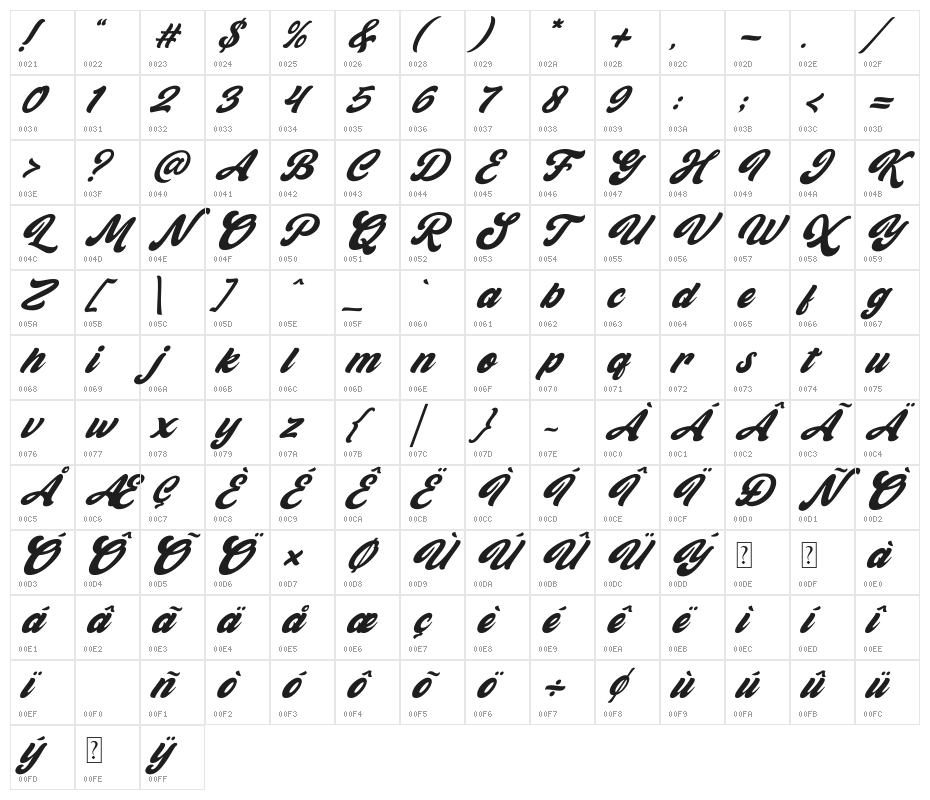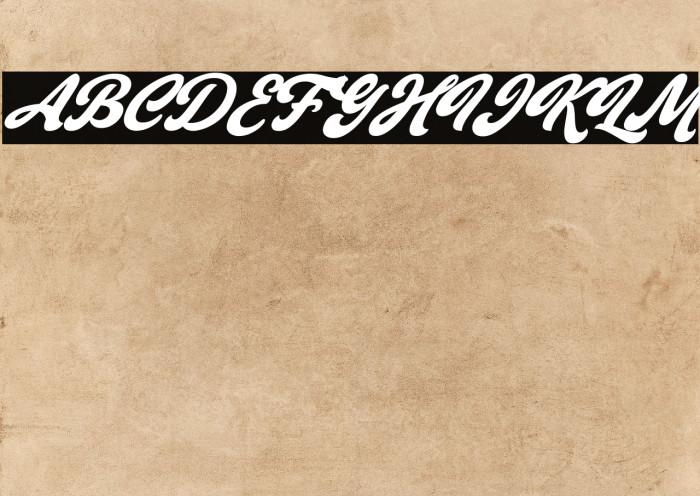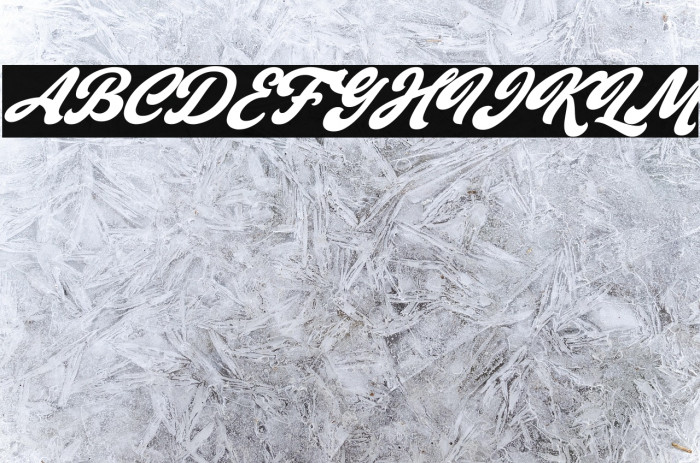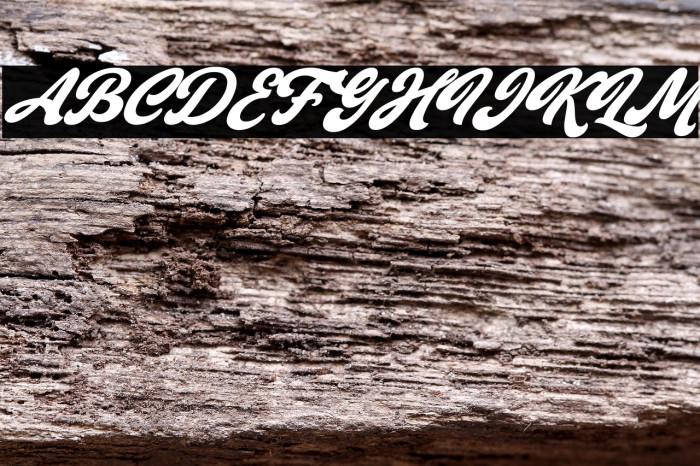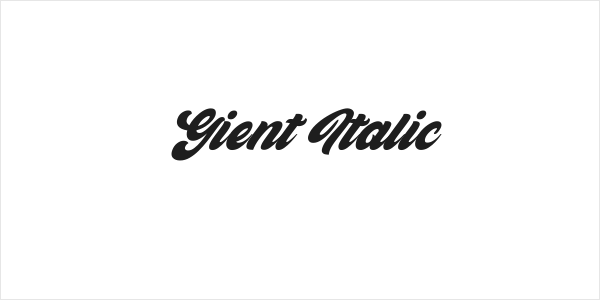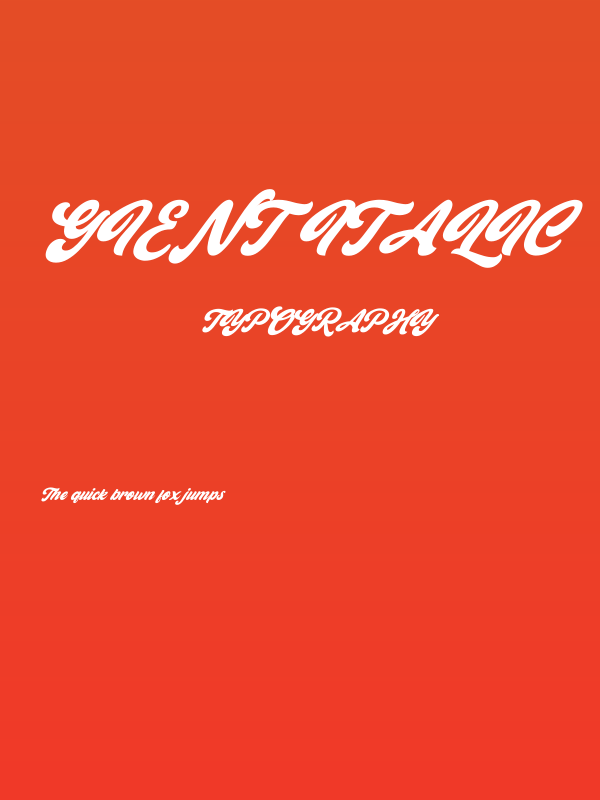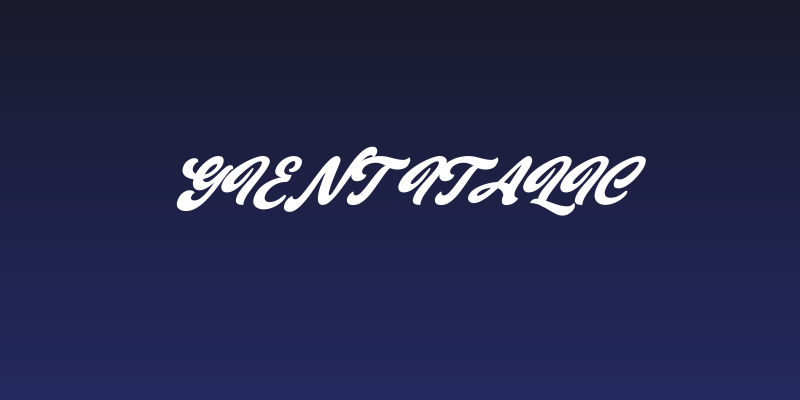
Gient Italic Font
Gient Italic Description
This font features a bold and flowing script style, characterized by its smooth, cursive letterforms that convey a sense of elegance and dynamism. The strokes are thick and consistent, creating a strong visual impact. The uppercase letters are slightly larger and more ornate, while the lowercase letters maintain a cohesive flow. The numerals and special characters are designed to match the overall aesthetic, ensuring uniformity across all glyphs. This font's italic nature adds a sense of movement and sophistication, making it suitable for a variety of creative applications.